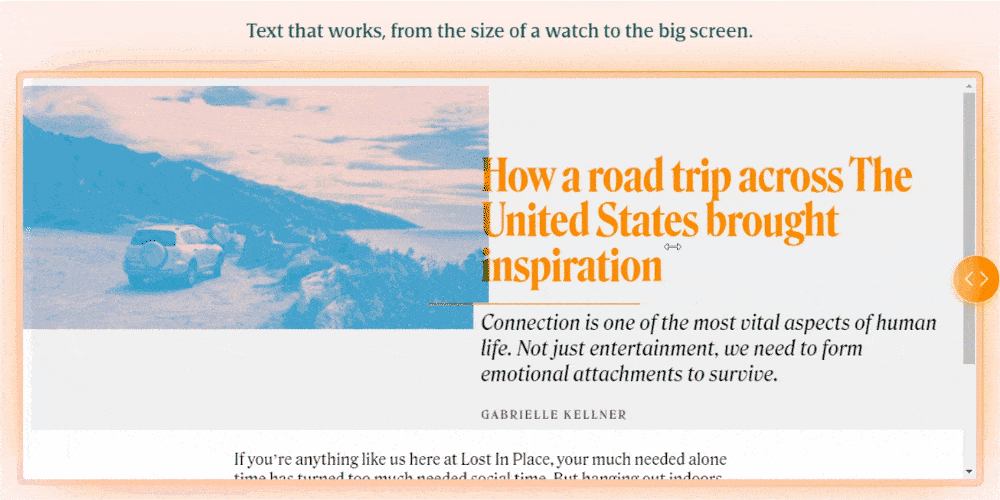
Type Network: What’s wrong with web typography today?
Scott Kellum: There's plenty wrong. First, designers can't see what they're doing. We're designing for a fluid medium, but none of our tools thus far are fluid. The best we today are tools like Figma and Framer. These applications are good, with tools like Auto Layout, but as you scale things up and down, you're still working in fixed artboards.
Second, Frank Chimero—in his wonderful post The Web’s Grain—talks about responsive web design and this conflict between fluid media and the text that flows around it. The text is a fixed volume, and he shows an example where a page scales up and down: The image shrinks and grows with the browser, but the text is incompressible.
With Typetura, we are trying to solve a few of those problems. We are producing design systems that are inherently and intrinsically fluid. We enable text to change size and spacing—as well as any other quality—as that compression and expansion is happening.
TN: People can use variable fonts on the web without plugins or JavaScript libraries, what does Typetura add?
SK: When I started Typetura, we were focused on creating a tool that lets people see what they were designing. As I mentioned, Figma has fixed artboards: How do you create fluid artboards? And how does that effect a design process, particularly when it comes to typography? A lot of designers and developers I was working with didn’t know about clamp and locks, which are two approaches to fluid typography.
What really irked me as variable fonts were coming out, that some of these pure CSS approaches don’t work with variable fonts. You could use these methods—and you could use them with a variable font—but it wouldn’t give you the results you need.
I started working on a JavaScript solution to enable a number of axes within variable fonts. Now, the current version of Typetura uses The Web Animations API for CSS, which means we support every axis of any variable font.
You can dial in the grade or optical size; you can adjust weight and width; all of these that are interlinked for parametric variable fonts. So as the user scales something up or down, you have control over those individual axes, creating rich, accurate typography in every context.
TN: I’ve read that Typetura allows more control over VF axes than a traditional CSS function might allow over point size; what does this mean?
SK: With clamp and locks, you have to write a function—usually something relating to X viewport units plus Y number of REMs—which is very much by feel, and always scales linearly. You can’t really set little points at which it staggers up. Of course, you could write more media queries, but then you’re still jumping from one linear scale to another, and it takes a lot of effort to create.
With Typetura, you can create Bezier curves for scaling adjustments. No CSS functions needed. Not to mention, you can do this with each variable font axis you want.
Outside of this technical differentiation, this also enables us to serve typographic systems to people without them having to know any extra code. They can just put a CSS class on something, like headline, and take a ready-made typographic system off the shelf and it just works. Since they’re context-dependent instead of viewport-dependent, it works with whatever layout you throw it into.
TN: How did you get the idea to create Typetura?
SK: I was on the launch team of vox.com and played a hand in the typographic palette that they use. When we redesigned SB Nation in 2012, we were trying to design a type system where users could know what kind of media they were clicking on: Is it an article? Is it a fan post? Is it a feature? We wanted users to know from the type, without a hundred labels. That’s one of the biggest problems on the web, is knowing where a link will take you.
We were working with a typographic palette that showed diversity, but just imagine: We had five different entry types with six potential homepage placements. That’s thirty combinations—for each breakpoint. Plus the body text faces and other type styles on the page. You need more than 72 different type styles. My thought was, what if we could do this with five or fewer?
In the face of that question, most might want to narrow the typographic diversity, but I wanted to capture that entire array of styles and make it possible. That’s when I started working on Typetura.
TN: What is your favorite execution of Typetura’s technology?
SK: We have a WordPress plugin which adds a typographic adjustment interface that people have used to make all kinds of wonderful websites.
Gold’s Guide is one of my favorite implementations that we've done. It was fun taking something out of the box and seeing how far it could go. In terms of what other people have made, Lynn Fisher made a fantastic website. And it's not typographic at all. But she used Typetura to create this wonderful animation. And as you scale a browser up and down, the entire website just zooms in and out.
SK: Through tools that make both design and implementation easier. Typography is such a vast practice. There's so much history, even in just the terminology and jargon it is so difficult to overcome for even trained designers. Making good typography easy for both designers to use and developers to implement is what we're after at Typetura, because the effective use of variable fonts is how we solve those two problems with web typography.